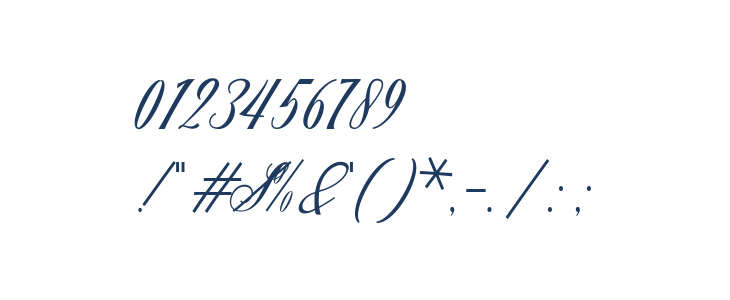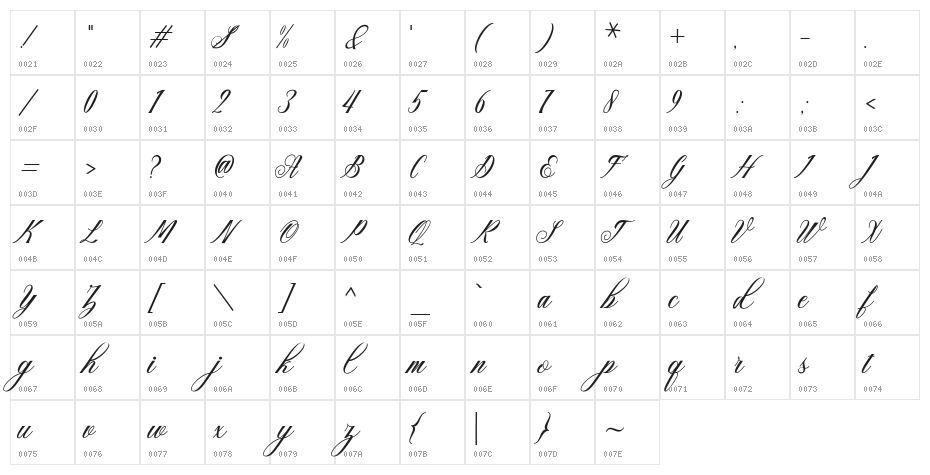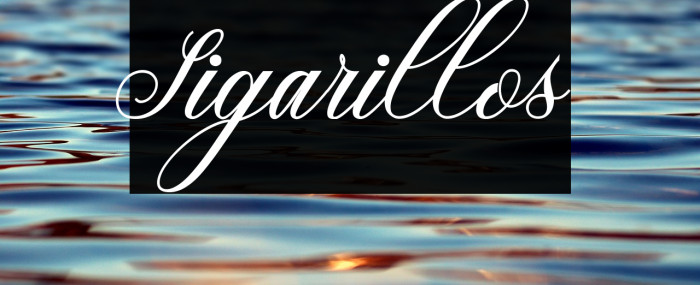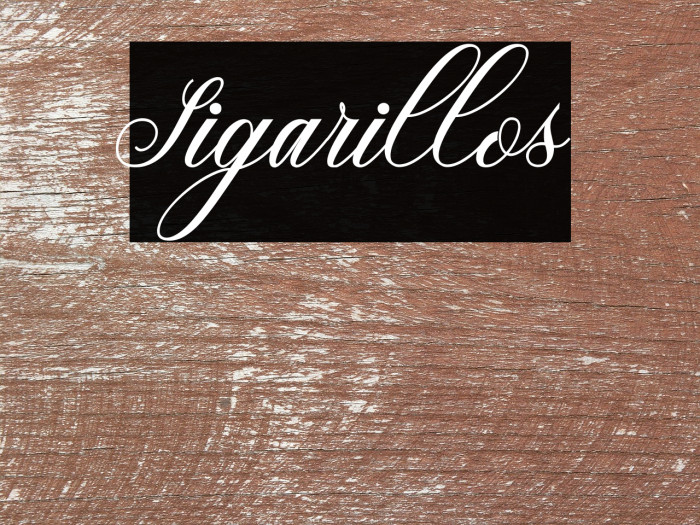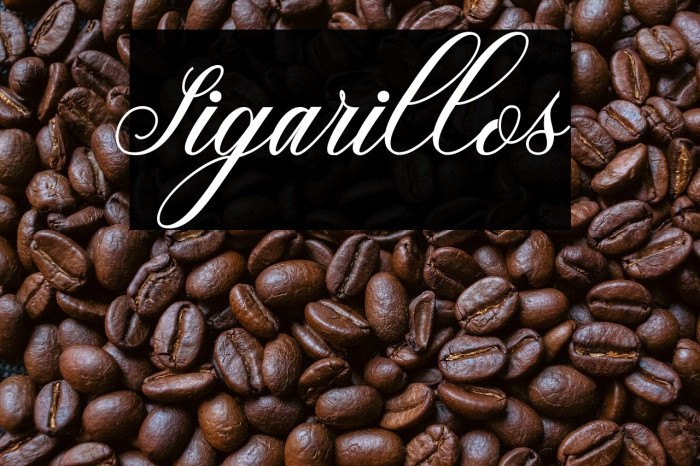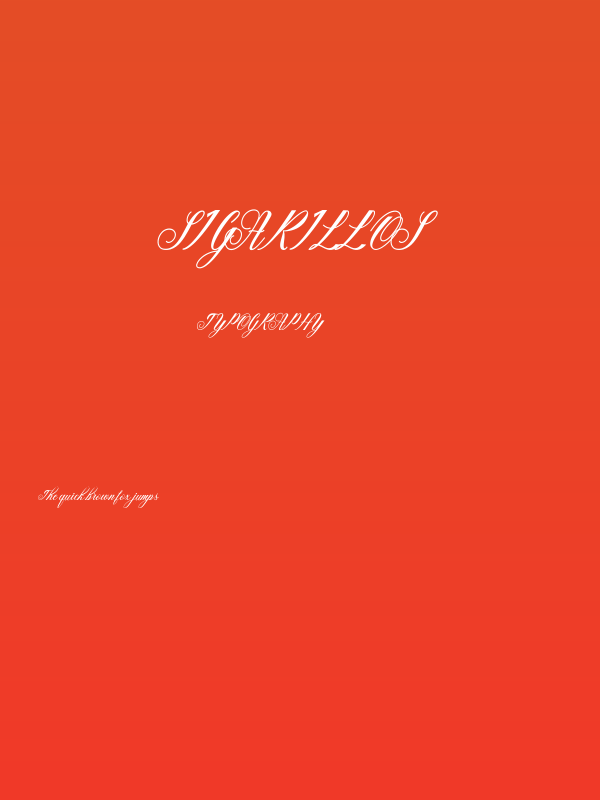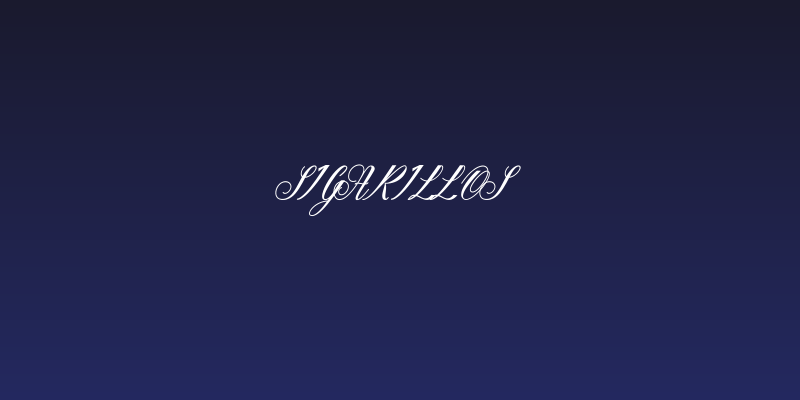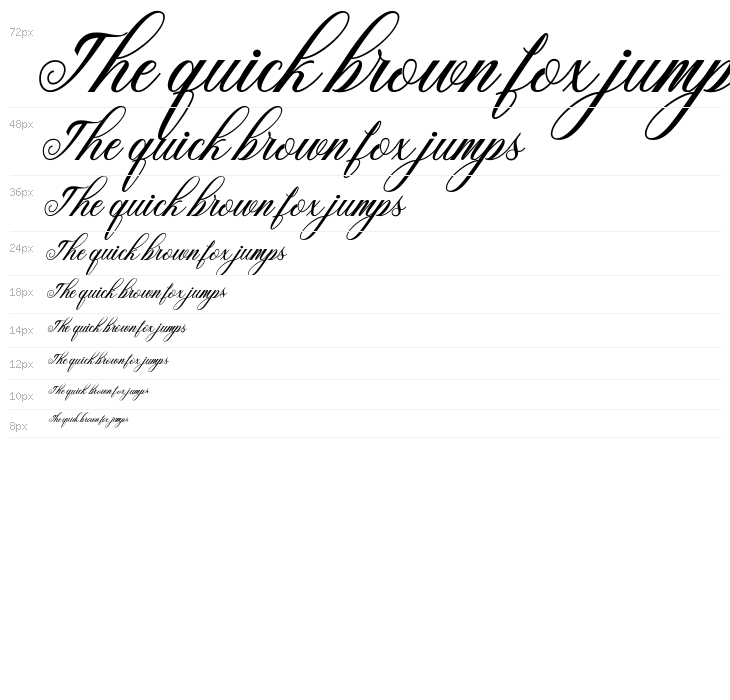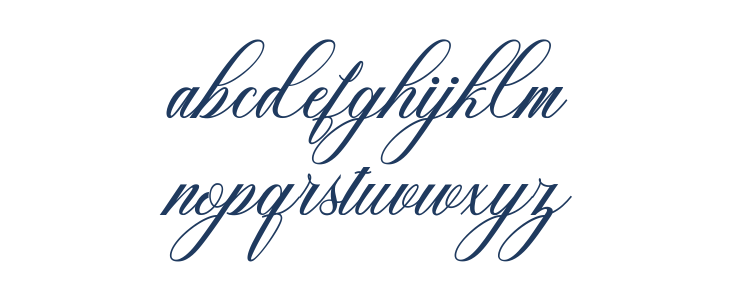
Sigarillos Font
Sigarillos Description
This elegant script font features a sophisticated and flowing design, characterized by its graceful curves and intricate details. The uppercase letters are ornate and decorative, with sweeping lines that create a sense of movement and fluidity. The lowercase letters maintain a consistent style, complementing the uppercase with their own delicate flourishes. The numerals are stylish and align well with the overall aesthetic, while the special characters add a touch of flair. This font exudes a sense of luxury and refinement, making it ideal for formal and high-end applications.
| Proposed Projects | Ideal for wedding invitations, luxury branding, elegant packaging, and formal event materials. |